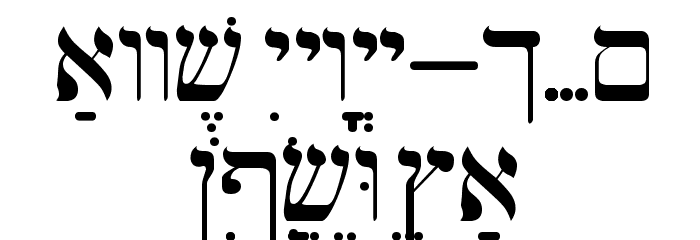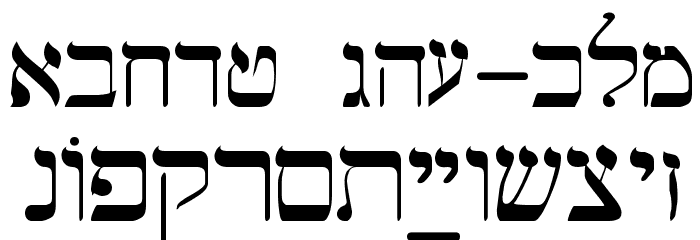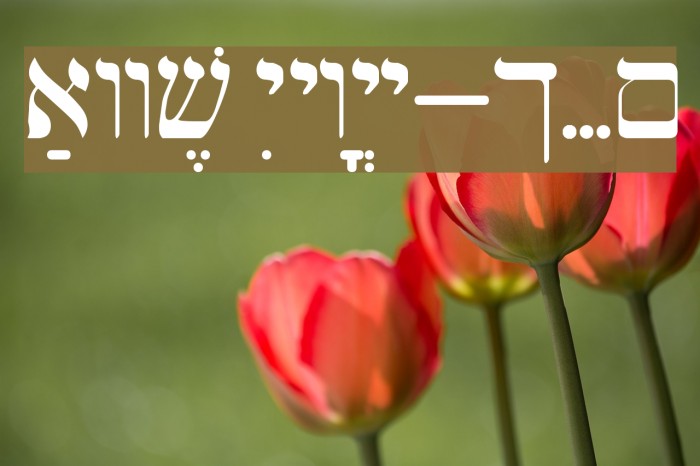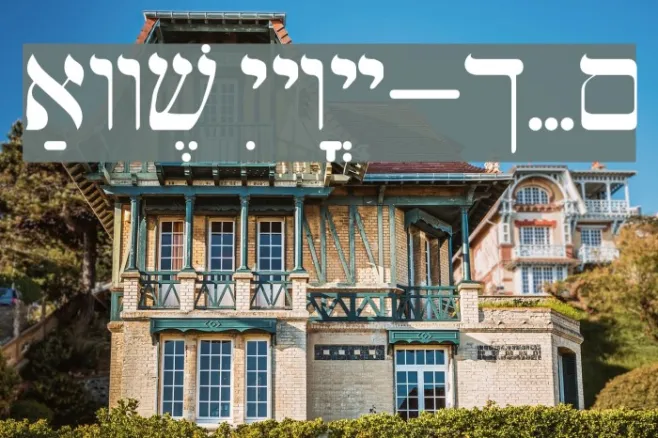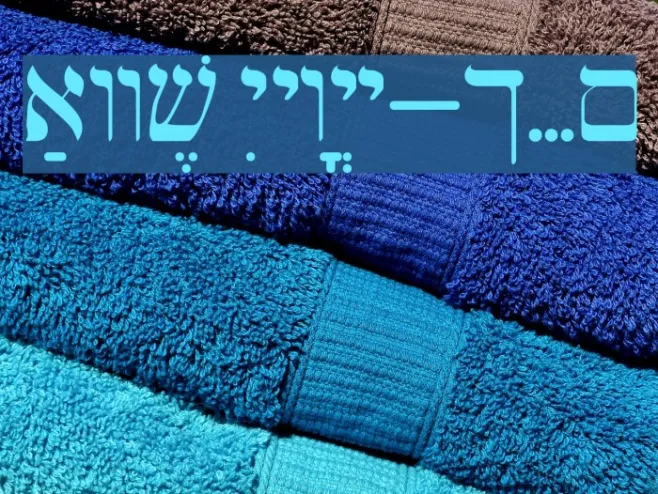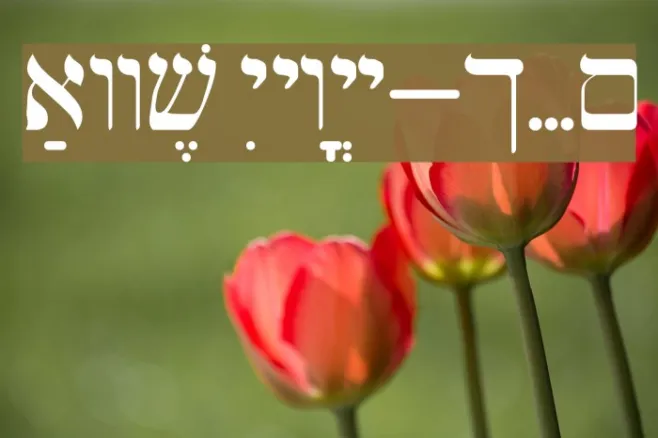
Hebrew Regular Font
This font features a traditional Hebrew script style with a modern twist. The characters are bold and well-defined, showcasing a strong presence on the page. The strokes are thick with a medium contrast, giving the font a robust and solid appearance. The spacing between characters is normal, allowing for clear readability. The font maintains a classic yet contemporary feel, making it versatile for various uses.
A bold, modern Hebrew script with medium contrast and normal spacing.
- Proposed Projects: Ideal for religious texts, cultural publications, branding for Jewish events, and educational materials.
- Use Case: Headlines, Logos, Cultural publications